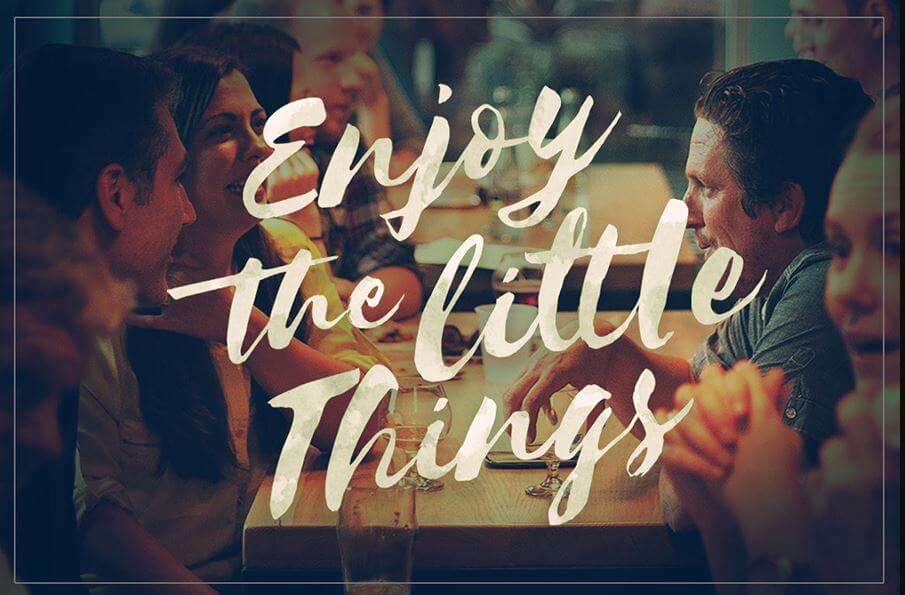
Selima Script Font
Selima script font was carefully crafted with unique font styles resulting in a loose brush-lettered font with a fabulous and irregular design, making it ideal for conveying lovely messages and adding a touch of personality to your designs. If you want to elevate the aesthetics of your projects, Selima script font is a must-have!
Selima script is like a loose brush-lettered font with the addition of beautiful irregular shapes and baseline.
Style Of Selima Script Font